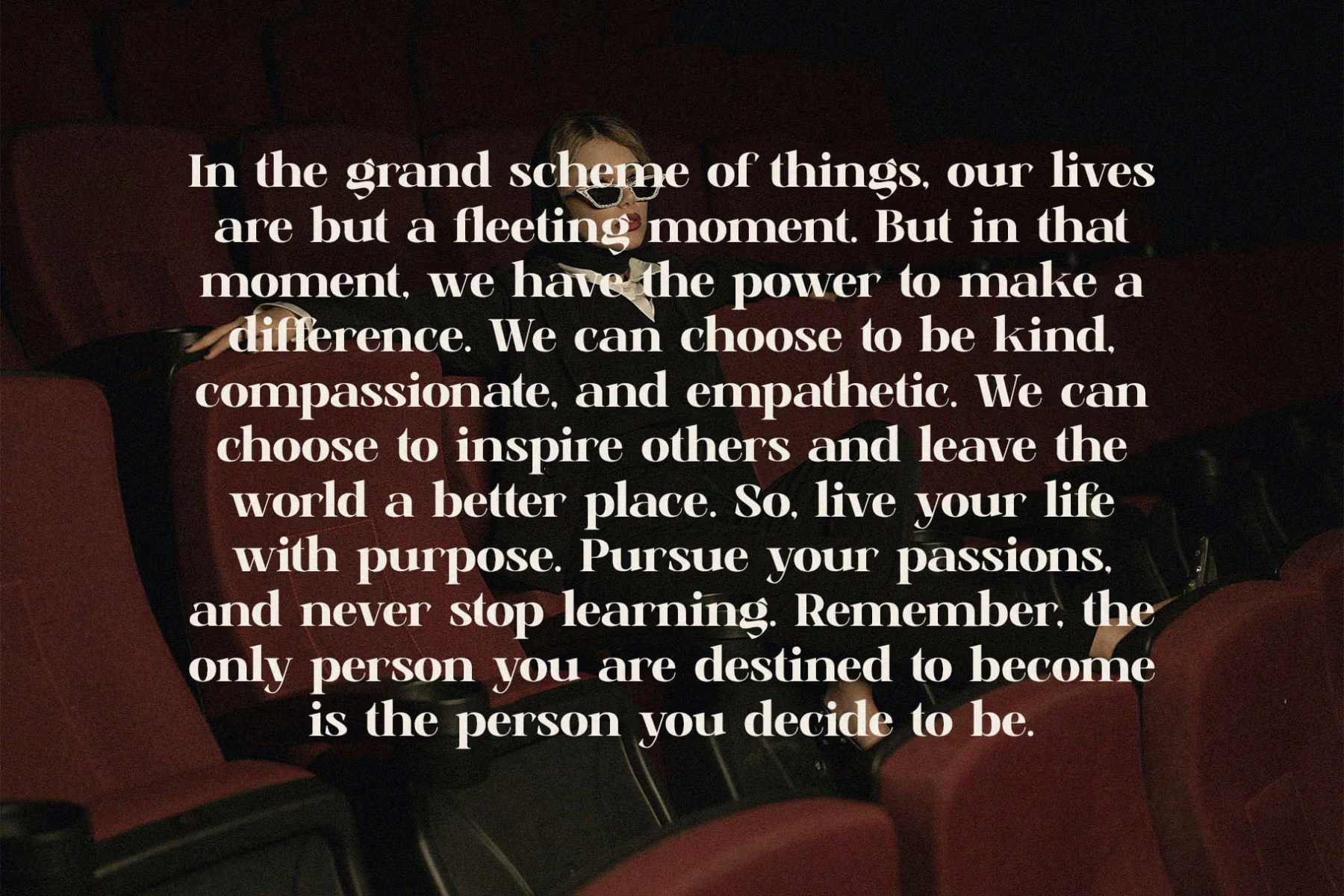
Qethiga Font
Qethiga is a beautifully crafted serif font that blends modern elegance with vintage charm. With its distinct serifs and refined curves, it exudes style and sophistication, making it a perfect choice for logo design, web content, and more.
This font is an excellent option for anyone looking to enhance their branding, marketing, or creative projects with a touch of personality and refinement.